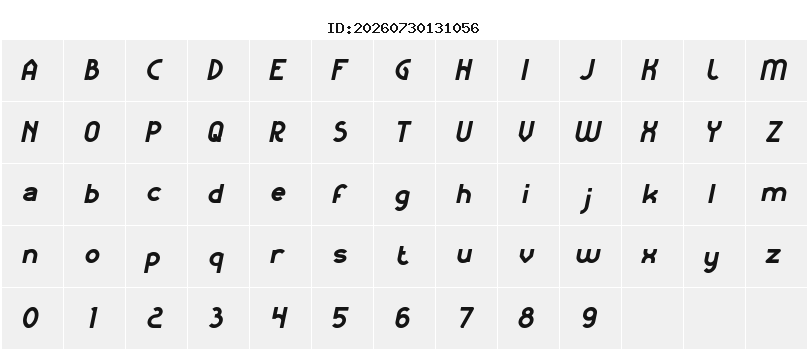
KANGAROO Punch Preview
• Font Name: KANGAROO Punch
• Font Style: Gras Italique
• Font ID: KANGAROO Punch Bold Italic:Version 1.00
• Full Font Name: KANGAROO Punch Bold Italic
• Version: Version 1.00 December 5, 2016, initial release
• PostScript Name: KANGAROOPunch-BoldItalic
About KANGAROO Punch.ttf
KANGAROO Punch.ttf is a modern, elegant sans-serif font designed for ultimate readability and visual harmony. Perfect for branding, headlines, web design, and print materials.